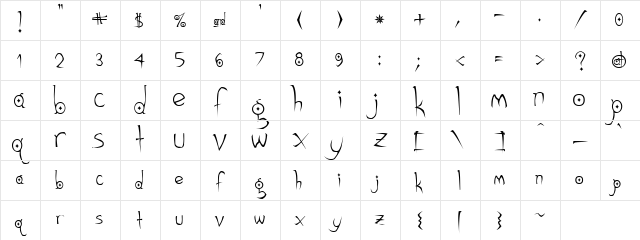
Cardiograph Regular
Design Context for Cardiograph
Cardiograph is a composed and adaptable typeface that performs quietly and consistently across a wide range of design contexts.